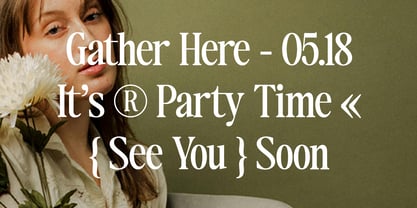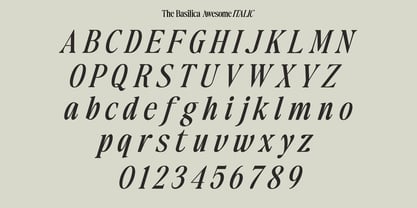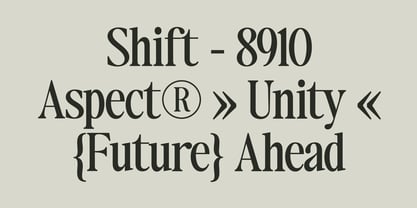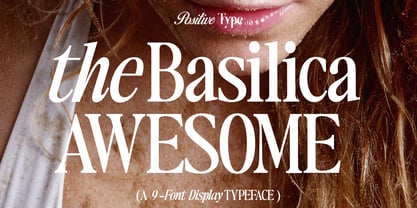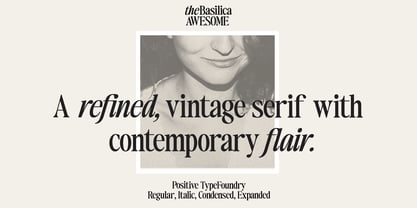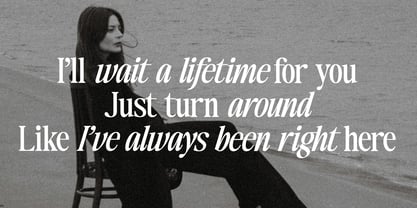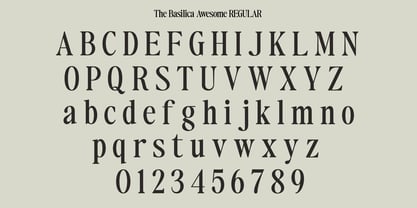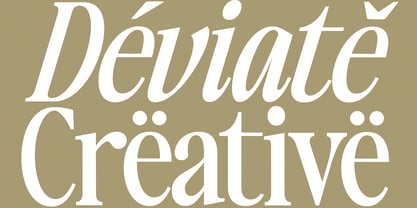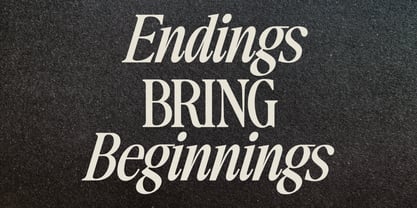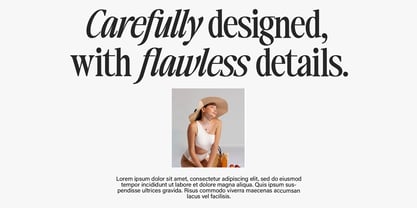
The Basilica Awesome
The The Basilica Awesome Font Family was designed by Nur Hayati and published by Positive Type. The Basilica Awesome contains 9 styles and family package options. More about this family
The Basilica Awesome is a modern vintage serif font packed in a modern and classy style, complete with access to your OpenType features to access a wide selection of fonts, a choice of fonts you like from uppercase and lowercase variations to achieve a luxurious and elegant look. Serifs are unique, playful, and versatile by enhancing the designs you like. This font is perfect for branding projects, logo designs, clothing branding, packaging, magazine titles, advertisements, t-shirts, postcards, and more. Features • All Uppercase and Lowercase • Number & Symbol • Supported Languages • PUA Encoded If you have any questions, please feel free to contact me. Thank You